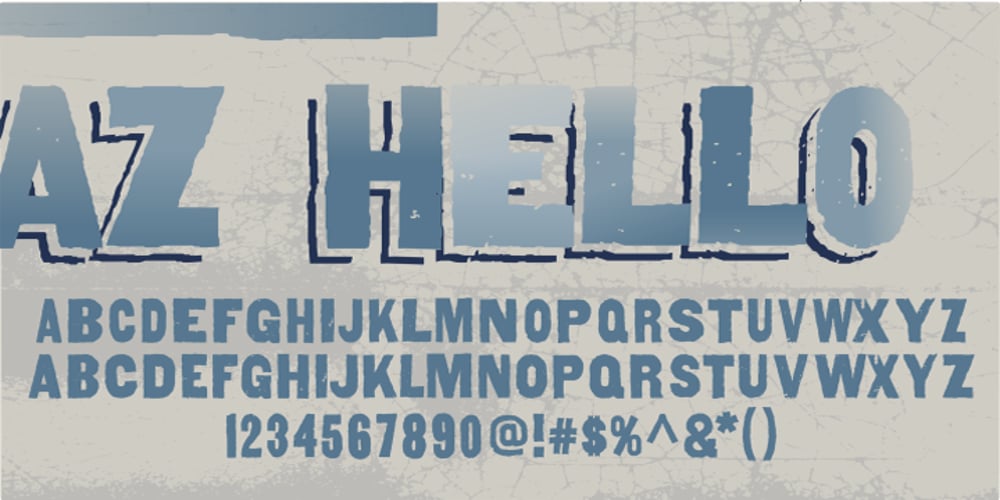
AZ Hello Font Family was designed by Andre Zottolo and published by Artist of Design. AZ Hello contains 1 styles and family package options. AZ Hello font was inspired from old auto repair signs. This font utilizes an “old look” to the line work which is designed to have a “worn feel” to it. Ideal for use as headline or sub-head text in you design.